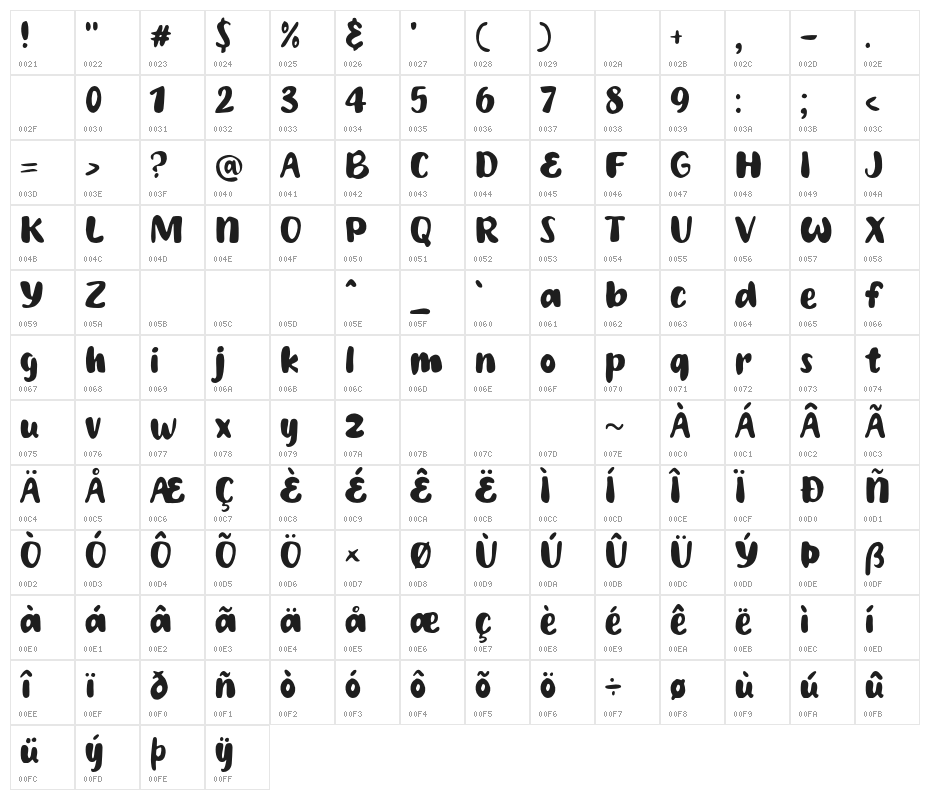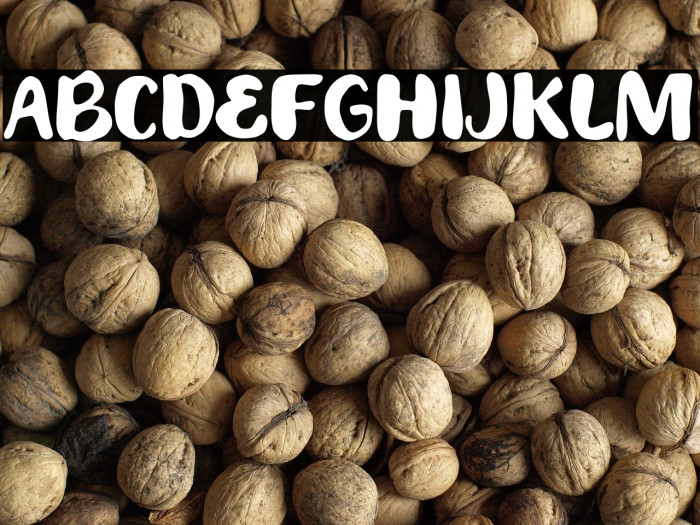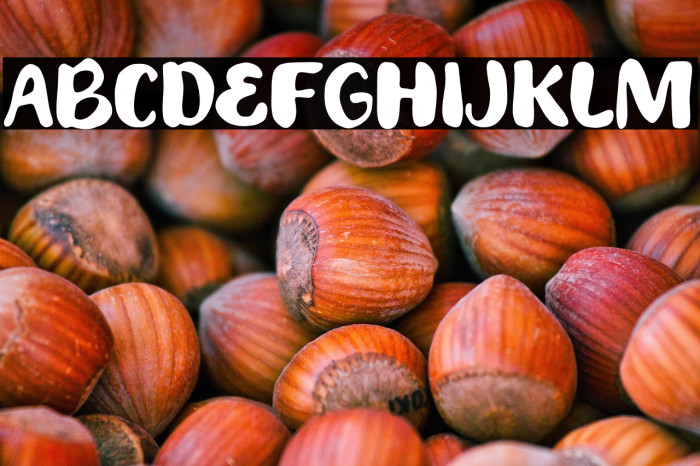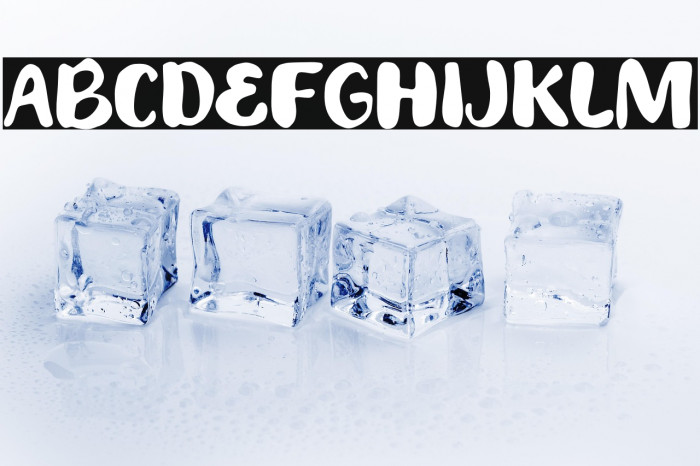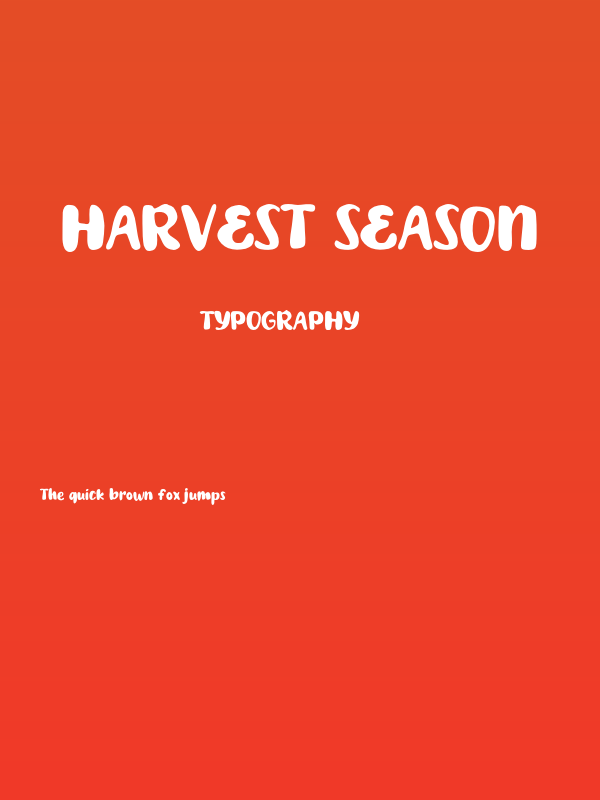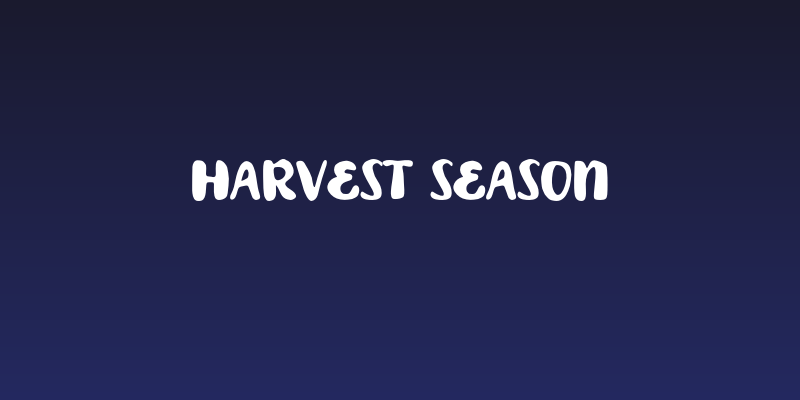
Harvest Season Font
Harvest Season Description
This font features a bold and playful style with rounded edges and a hand-drawn appearance. The characters are thick and have a consistent weight throughout, giving them a strong presence on the page. The overall look is casual and friendly, making it suitable for designs that aim to convey warmth and approachability. The uppercase and lowercase letters maintain a consistent style, with slightly exaggerated curves and a whimsical touch. The numerals and special characters follow the same design principles, ensuring a cohesive look across all text elements.
| Proposed Projects | Ideal for children's books, playful branding, greeting cards, and casual invitations. |